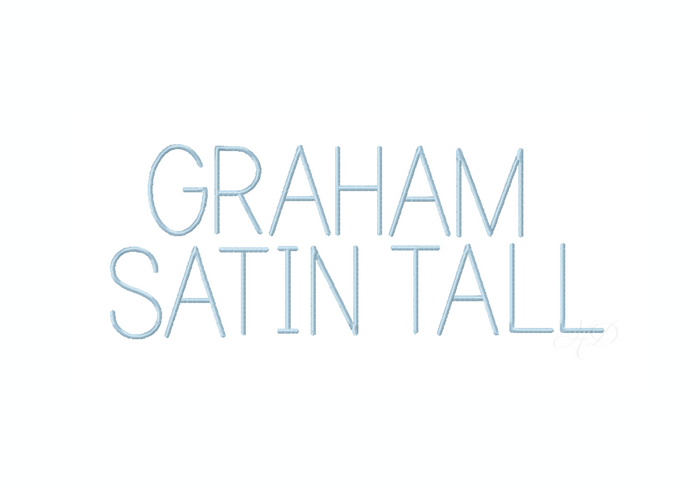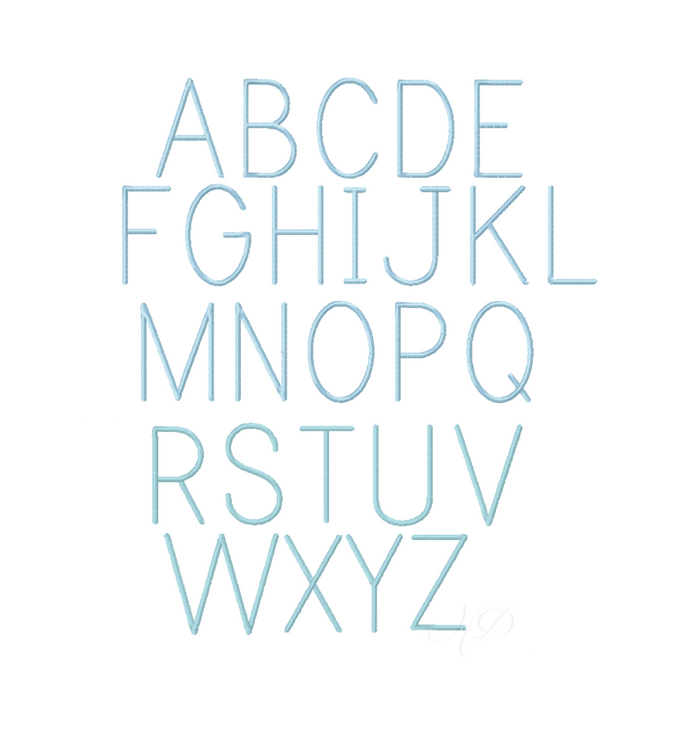
Large Graham Satin Embroidery Font Package
Unleash your creativity with our Large Graham Satin Embroidery Font Package, designed specifically for larger embroidery hoops (5x7 and 6x10). This best-selling font features a thinner design, ensuring a smooth and consistent satin stitch even in larger sizes.